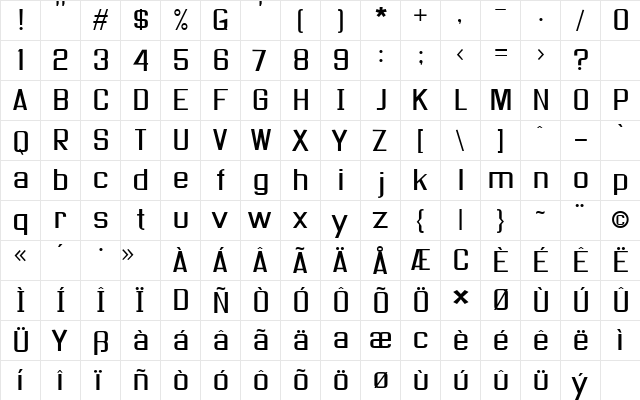
As seen on TV Regular Font Preview
As seen on TV Regular
As seen on TV Regular Font Details
Design Context for As seen on TV Typeface
As seen on TV offers clean, dependable letterforms without strong stylistic allegiance, making it a practical choice for designers who need flexibility.
Pro Tip: Pair As seen on TV with a font of contrasting weight or personality to build a more expressive typographic hierarchy.